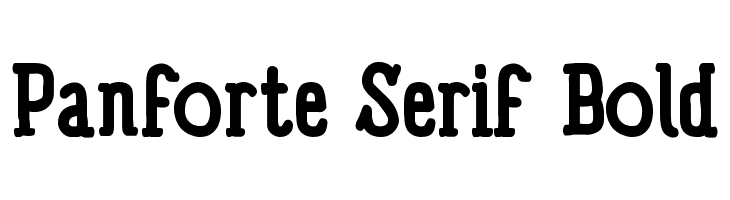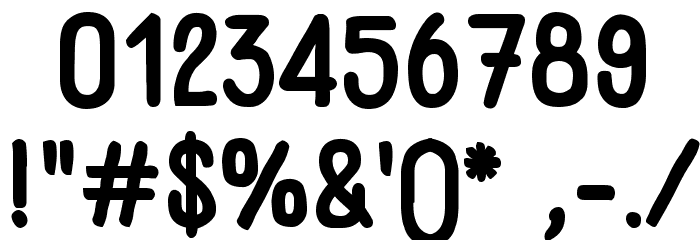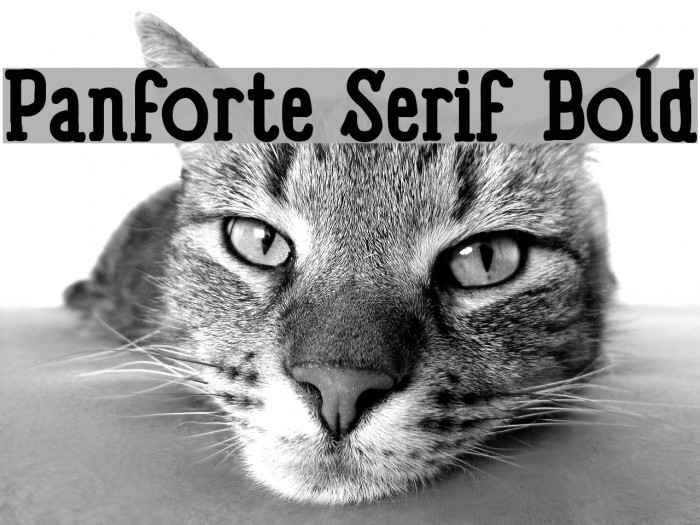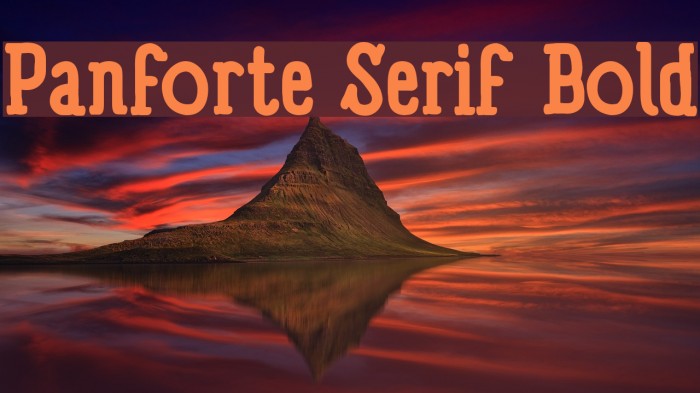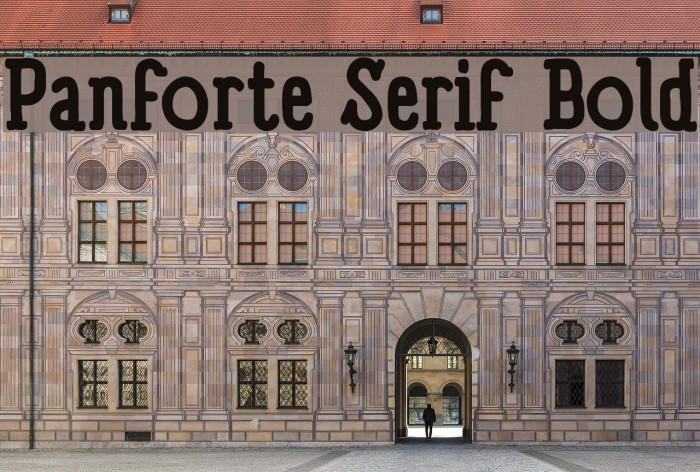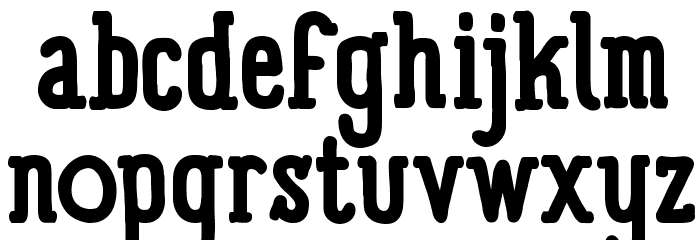
Panforte Serif Bold Font
Panforte Serif Bold Description
This font features a bold and robust serif style with a distinctive vintage flair. The characters are well-defined with thick strokes and prominent serifs, giving them a strong presence. The uppercase letters are tall and commanding, while the lowercase letters maintain a consistent and harmonious flow. The numerals are clear and bold, ensuring readability. Special characters are designed with the same attention to detail, making them stand out effectively. This font's overall appearance is both classic and decorative, suitable for projects that require a touch of elegance and strength.
A bold serif font with a vintage and decorative style from Distorted Eroded fonts.
- Proposed Projects: Ideal for branding, headlines, posters, and packaging design.
- Overall Style: Vintage